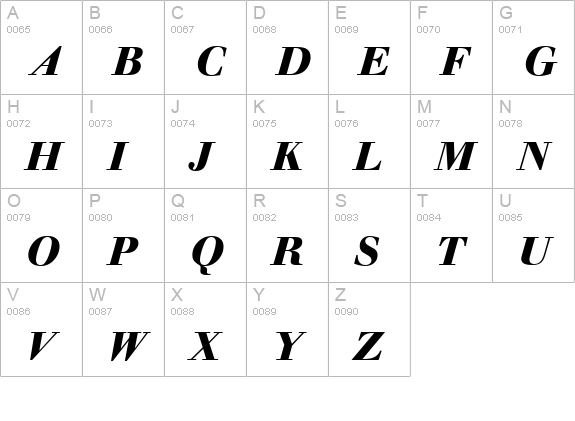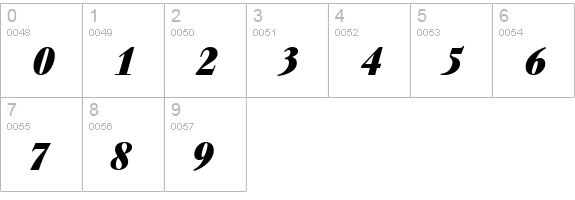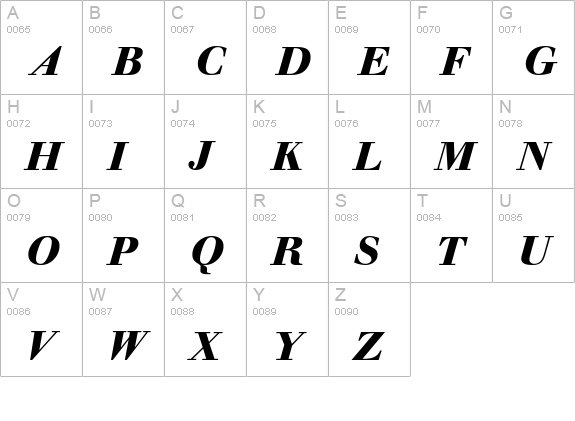
WalbaumDisplay-Heavy-Italic is a heavy, high-impact, italic variant in the WalbaumDisplay typeface family \xE2\x80\x94 well suited to high-impact headlines, posters, and display advertising.
WalbaumDisplay-Heavy-Italic font exudes a sense of elegance and sophistication with its bold weight and distinctive italic style. The graceful curves and sharp angles of this typeface make it a perfect choice for projects that require a touch of drama and flair. What makes WalbaumDisplay-Heavy-Italic font even more appealing is that it is available for free download at FontsMarket.com. Whether you are working on a branding project, editorial design, or any other creative endeavor, this font will add a touch of luxury and sophistication to your work. Don't miss out on this opportunity to enhance your designs with the timeless beauty of WalbaumDisplay-Heavy-Italic font, now available for free at FontsMarket.com.